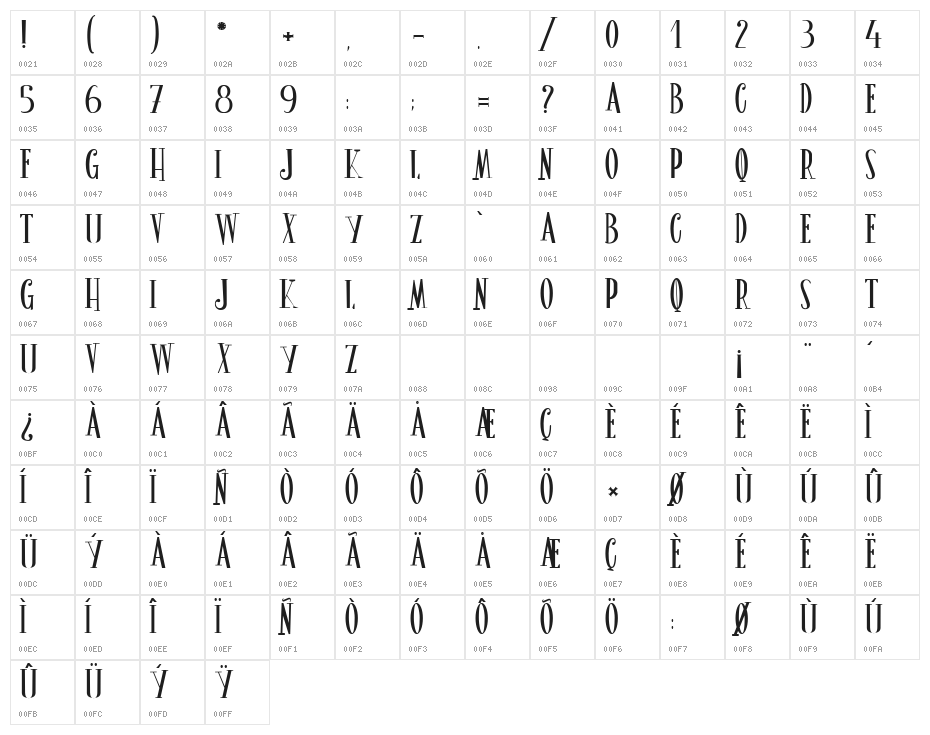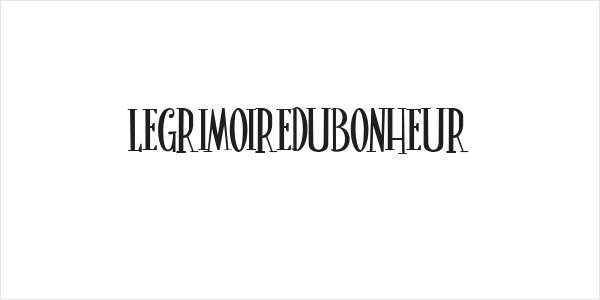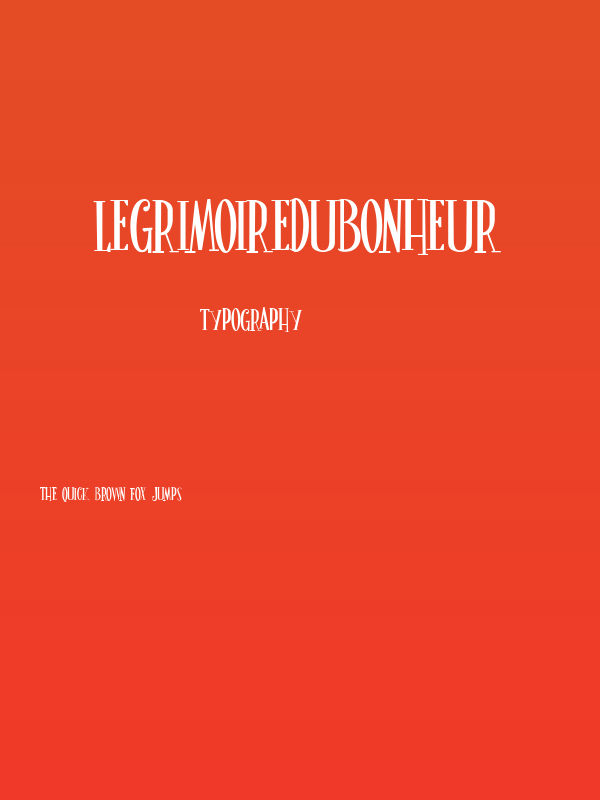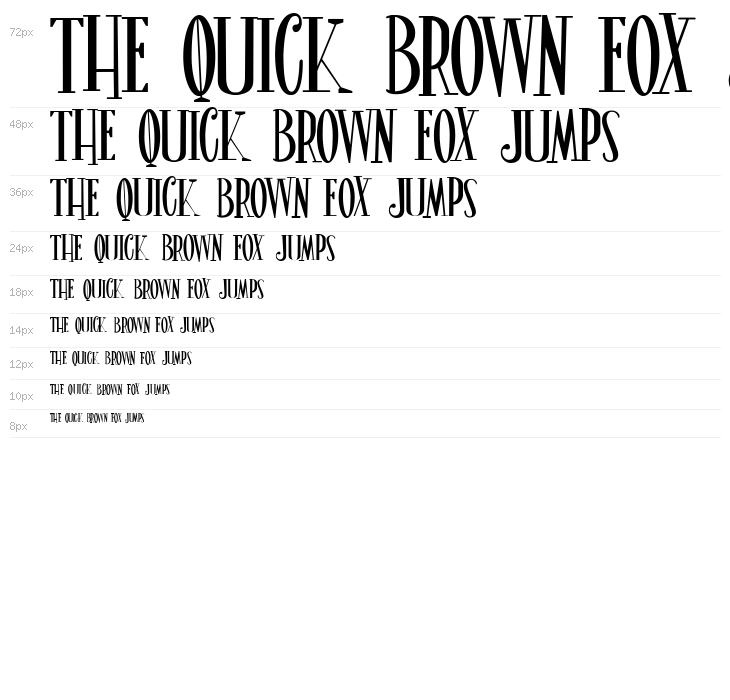
LeGrimoireduBonheur Font
LeGrimoireduBonheur Description
This font features a distinct and elegant style with tall, narrow characters that exude sophistication and charm. The uppercase letters are particularly elongated, giving a sense of grandeur and formality. The lowercase letters maintain a consistent height, complementing the uppercase with a refined touch. Numbers are clear and legible, while special characters like the exclamation mark and ampersand add a playful yet classy element. The overall design is reminiscent of vintage typography, making it suitable for projects that require a touch of elegance and historical flair.
| Proposed Projects | Ideal for wedding invitations, luxury branding, book covers, and editorial design. |